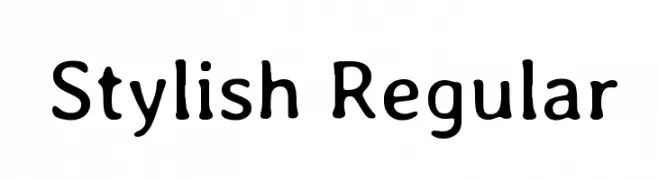
A bold, decorative font with diagonal stripes for a modern, dynamic look.
A bold, playful font with irregular, whimsical shapes and a decorative style.
A bold, impactful font with clean lines and strong presence.
A playful, rounded font with smooth curves and consistent stroke width.
A whimsical, looped serif font with decorative elements and medium weight.
A bold, geometric font with a modern and edgy style.
A playful, bold font with rounded edges and a hand-drawn feel.
A playful, bold handwritten font with thick, rounded strokes.
A bold, geometric font with strong angles and a modern look.